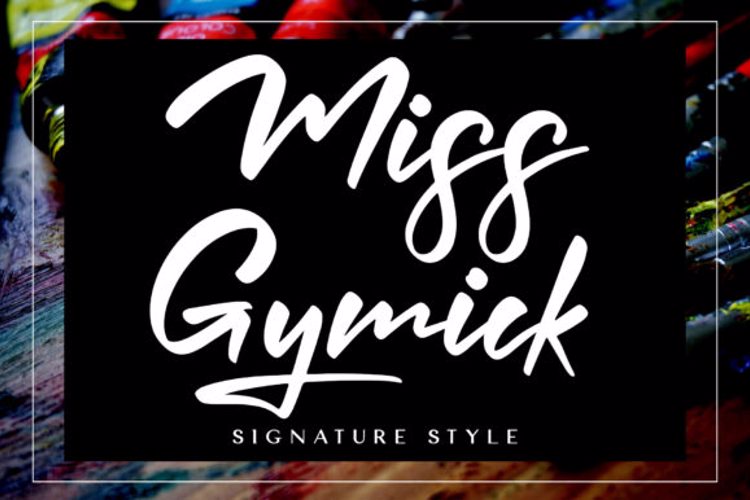
Miss Gymick Font
About Miss Gymick Font
More info from Isolatype
Miss Gymick feels equally charming and elegant. It looks stunning on wedding invitations, thank you cards, quotes, greeting cards, logos, business cards and every other design which needs a handwritten touch.